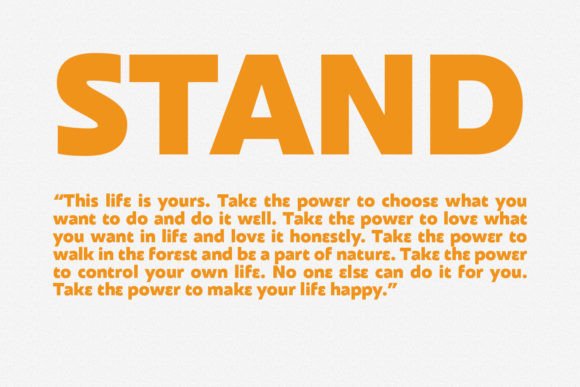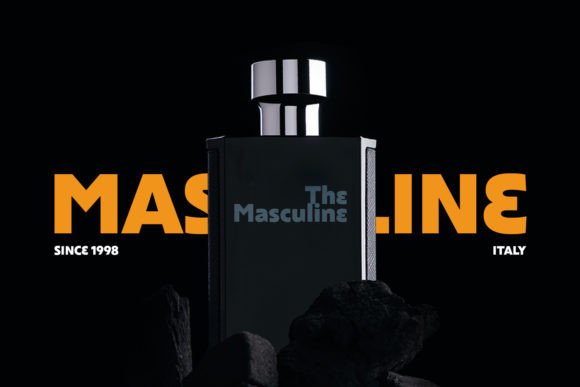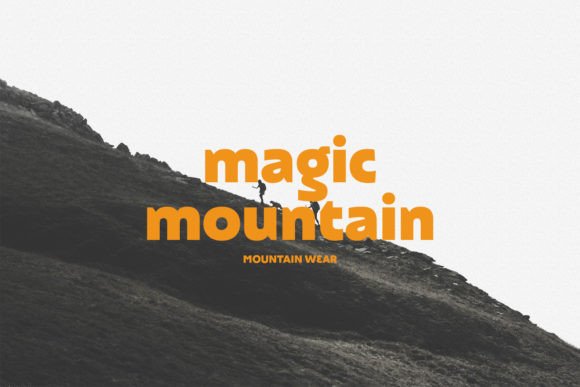
Introduction to Crigo Font
Crigo is a bold display font that demands attention.
Its assertive shapes and strong lines make it a versatile choice for headlines and branding projects With a range of weights, from light to black, Crigo offers flexibility while maintaining its striking presence.